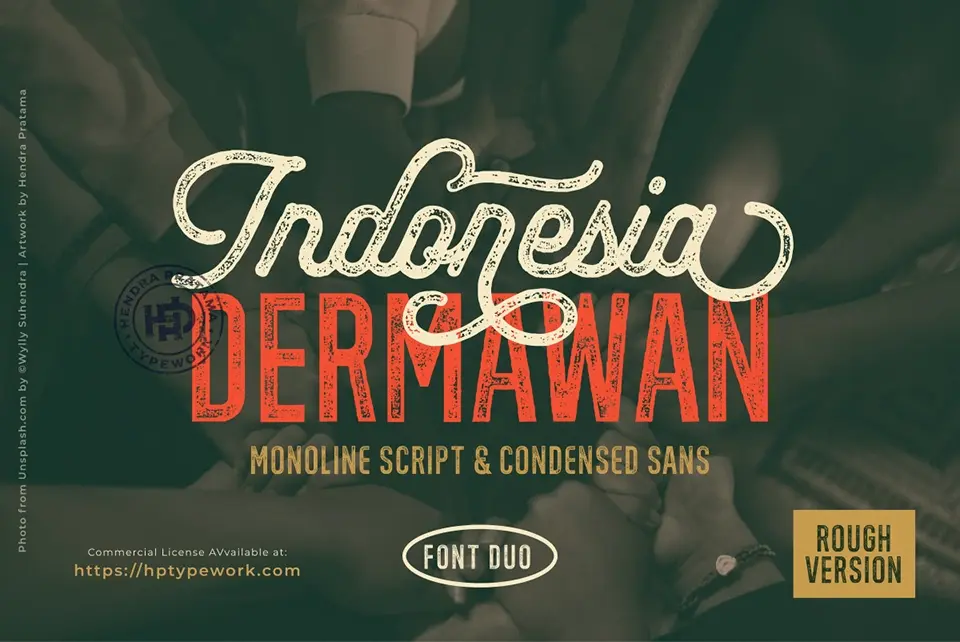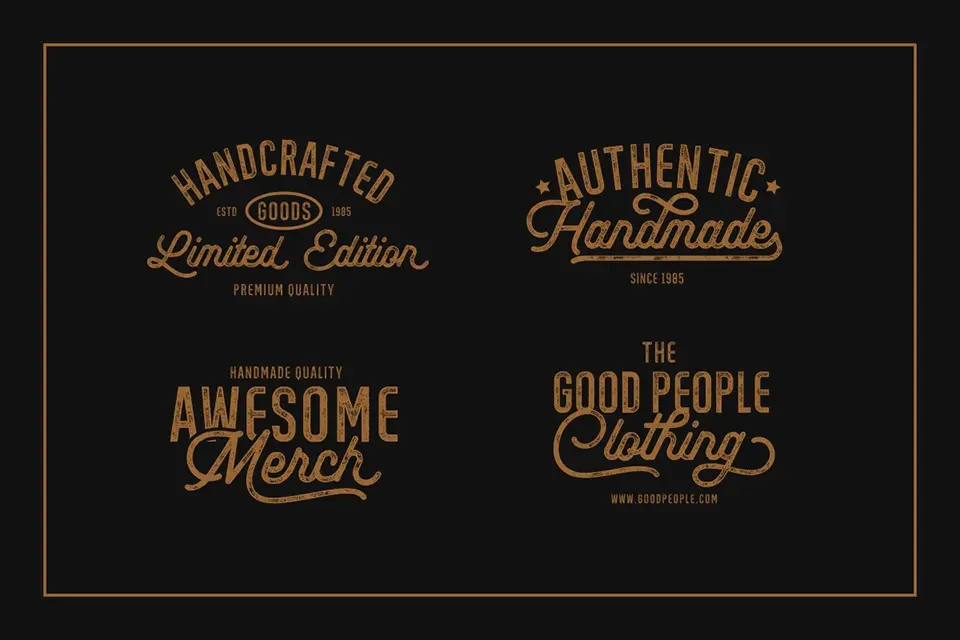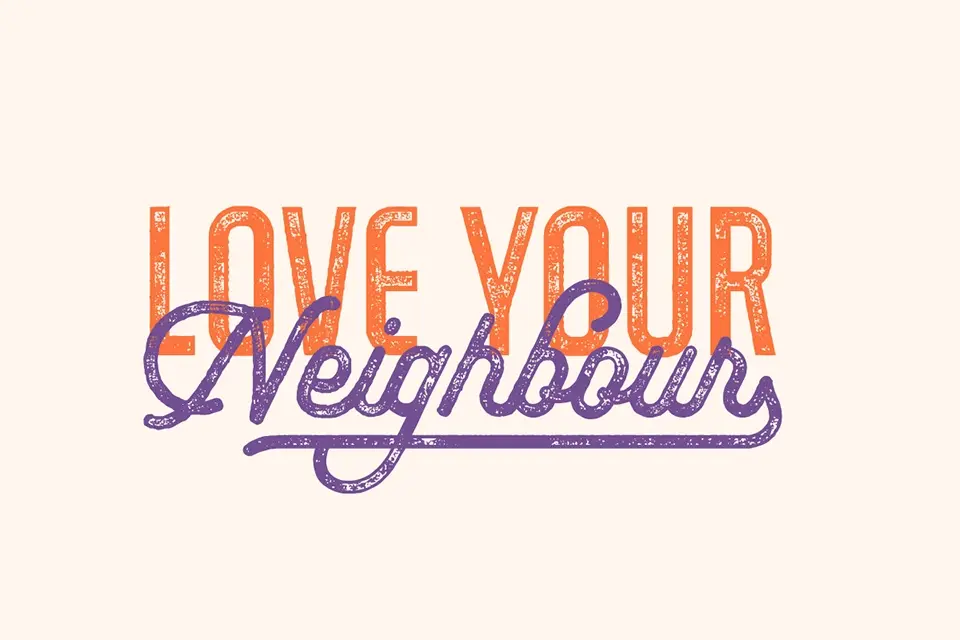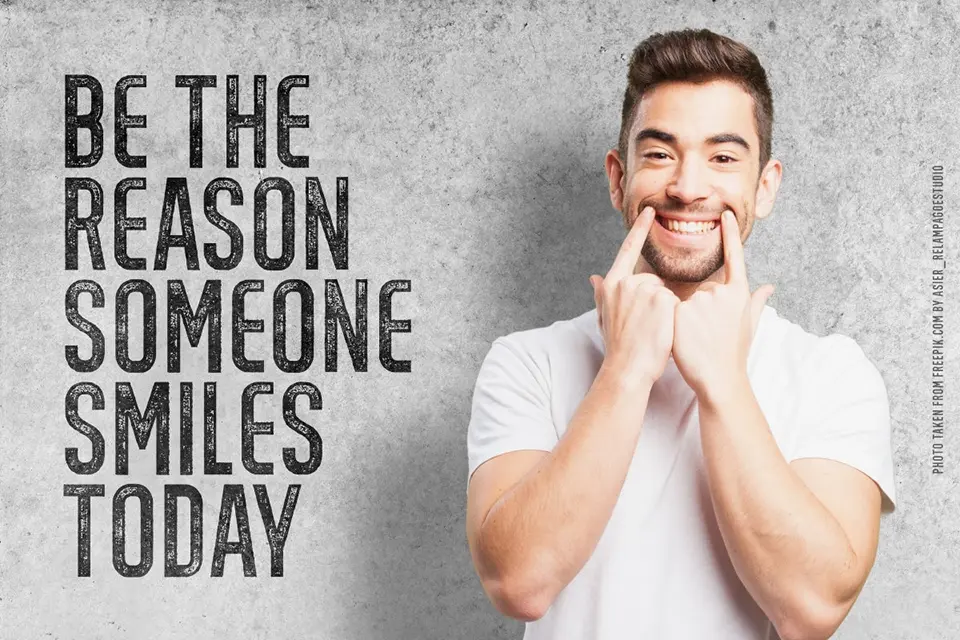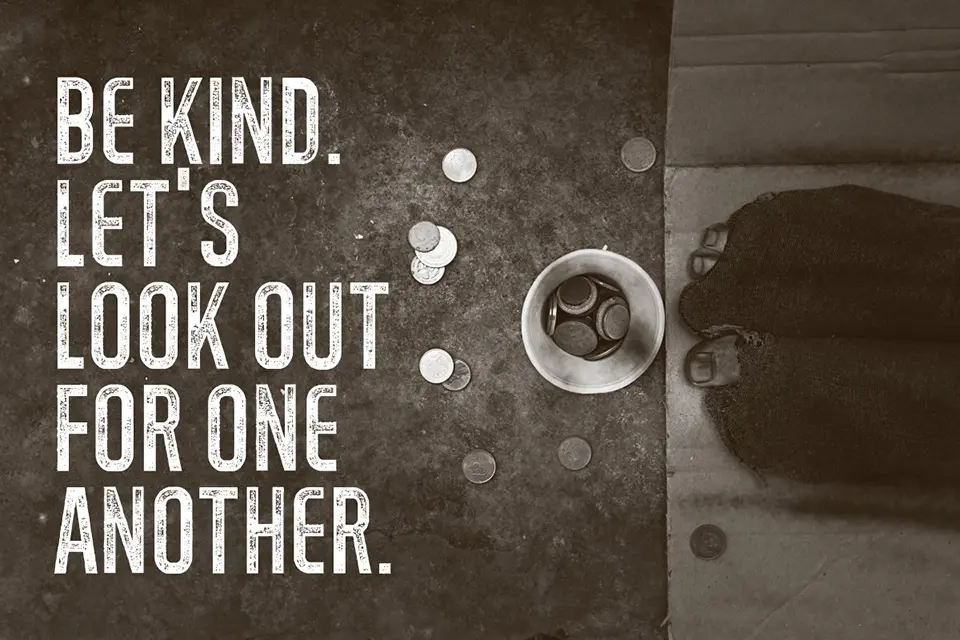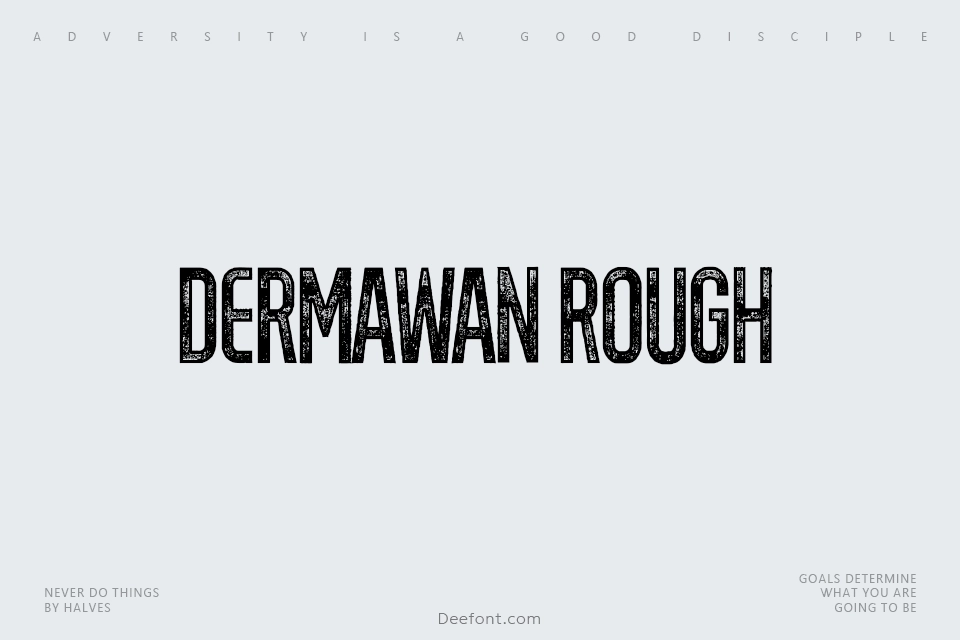
Dermawan Rough Font
Dermawan Rough is a bold, condensed sans serif font with a playful yet sophisticated character. Designed with distinctive rough edges and rounded letterforms, this typeface delivers a strong, contemporary aesthetic perfect for titles, headlines, and display applications. The font family features generous alternate glyphs and is ideal for branding, poster design, and attention-grabbing typography that demands visual impact while maintaining elegant readability.